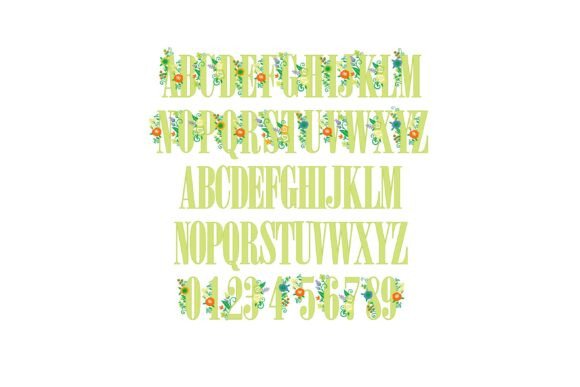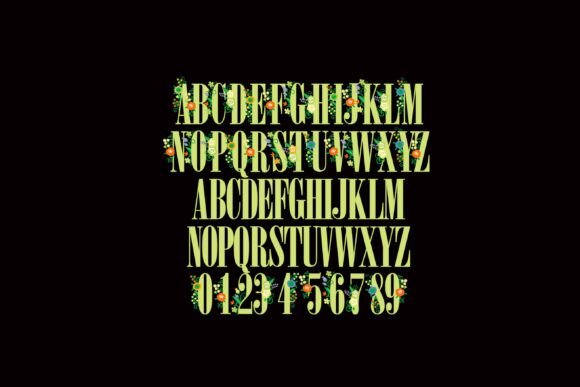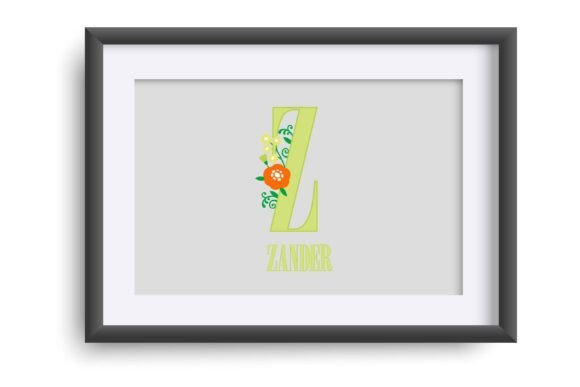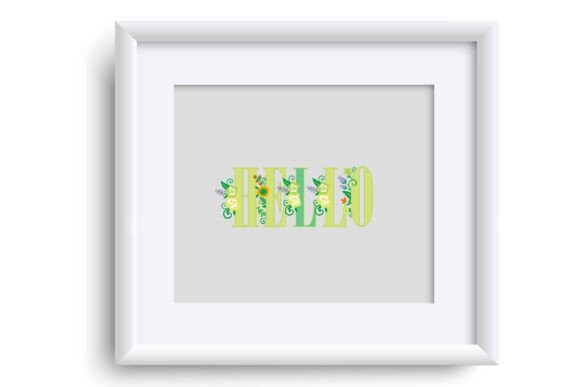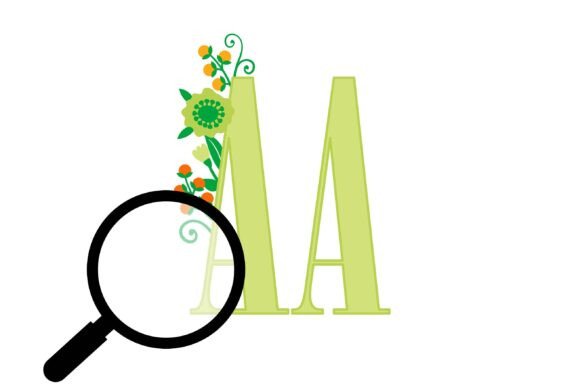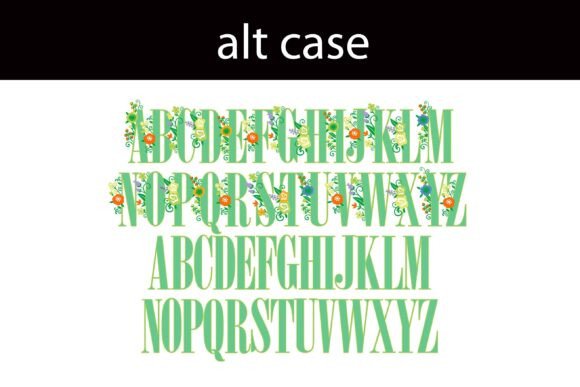
Introducing the Green Grind Font: Elevate Your Designs with a Touch of Nature
Are you tired of using the same old fonts in your designs? Look no further! The Green Grind Font is here to revolutionize the way you create titles, displays, posters, and more. This stunning full-color font features a serif font in a beautiful green color palette, complete with intricate florals on the uppercase letters.
A Font that Packs a Punch
The Green Grind Font is not just any ordinary font. Its unique blend of serif elegance and playful florals makes it perfect for designers and crafters looking to add a touch of personality to their work. Whether you’re creating a logo, poster, or social media graphic, this font is sure to make your design stand out.
Key Features of the Green Grind Font
- Full-color font: The Green Grind Font features a range of colors that will take your designs to the next level.
- Serif font with florals: The uppercase letters are adorned with beautiful florals, adding a touch of whimsy to your designs.
- Alt version with additional colors: Access an alternative version of the font through your system’s character map, featuring additional colors for all letters.
What to Keep in Mind
The Benefits of Full-Color SVG Fonts
Full-color SVG fonts, like the Green Grind Font, offer a world of creative possibilities. With a full range of colors and styles to choose from, you can:
- Create stunning text logos: Add a pop of color to your logos and make them truly unforgettable.
- Design complex illustrations: Use the Green Grind Font as a starting point for intricate illustrations and designs.
- Add personality to your designs: With its unique blend of serif and floral elements, the Green Grind Font is the perfect way to inject some personality into your work.
Tips for Using the Green Grind Font
To get the most out of the Green Grind Font, try the following:
- Use it for titles and displays: The Green Grind Font is perfect for creating eye-catching titles and displays.
- Experiment with different colors: While the font features a pre-set color palette, you can experiment with different colors to create a unique look.
- Combine it with other fonts: Try pairing the Green Grind Font with other fonts to create a truly unique look.